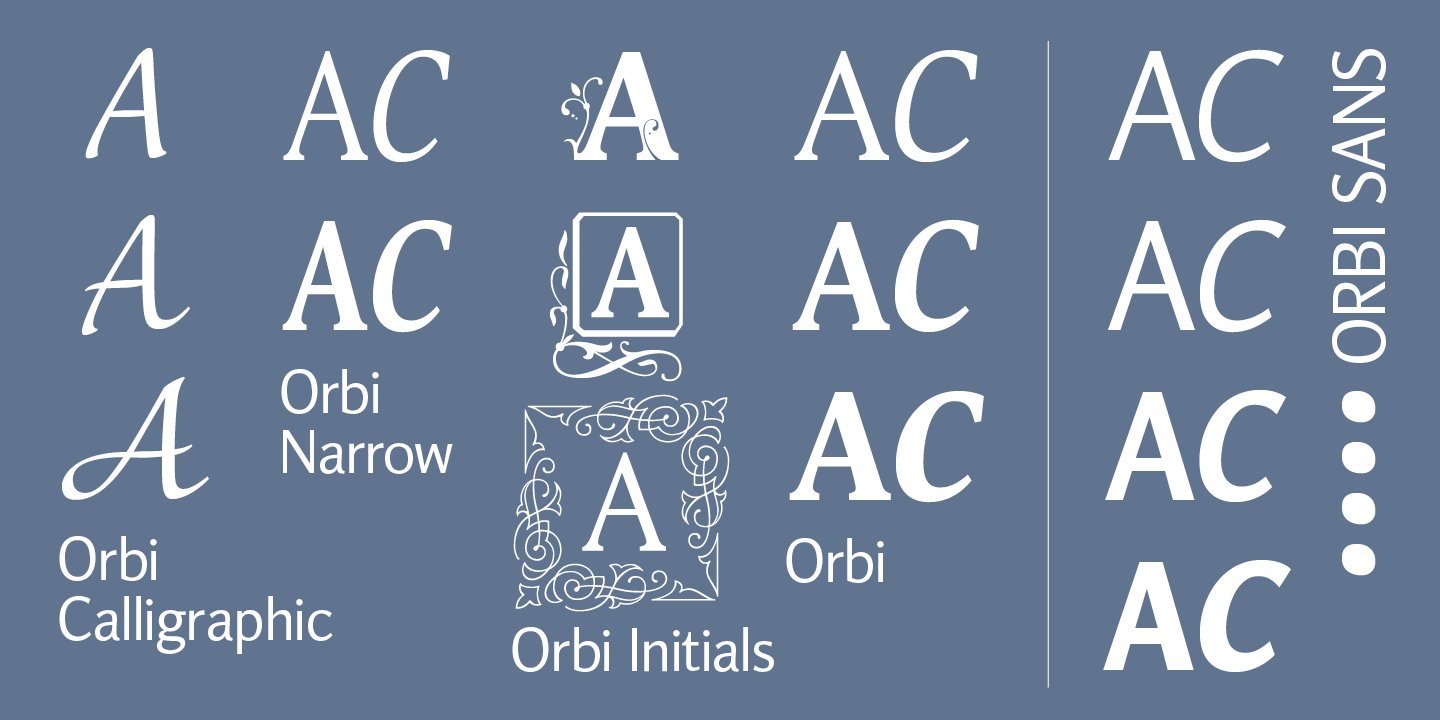
Orbi Sans Font is ideal for space exploration organizations, orbital mechanics research, satellite technology branding, aerospace engineering presentations, planetary science publications, astronomical observatory communications, space mission documentation, cosmic research institutes, orbital dynamics interfaces, and cutting-edge space technology marketing. This futuristic typeface excels in applications where orbital precision and space-age sophistication need to be communicated with celestial elegance and scientific accuracy that embodies the essence of space exploration and the revolutionary advancement found in aerospace technology and orbital mechanics.
What makes Orbi Sans Font exciting is its remarkable ability to capture the precise orbital mechanics and celestial grace of space exploration through its systematically circular letterforms that seem to follow the perfect trajectories and gravitational harmony that govern planetary motion and satellite orbits. The font embodies the spirit of space exploration with its orbitally inspired construction and astronomically precise proportions that suggest the mathematical elegance and systematic precision that characterizes successful space missions and orbital mechanics. Its carefully engineered character details and cosmic personality create an atmosphere of space-age confidence that resonates with aerospace engineers, space scientists, and organizations working in space exploration who understand the critical importance of precision, reliability, and systematic excellence in space technology and orbital applications.
The Orbi Sans Font family typically includes Light, Regular, Medium, and Bold weights, each maintaining the signature orbital characteristics and space-age sophistication. Some versions offer enhanced circular variants that amplify the orbital aesthetic, alternative character sets with astronomical symbols and space notation, and specialized treatments designed for space technology interfaces and scientific space documentation. The family may also include condensed styles for efficient space mission layouts and display cuts optimized for maximum cosmic impact in aerospace and space exploration applications requiring authentic space-age credibility.
Whether you're creating aerospace brand identities, space exploration materials, or orbital technology communications, Orbi Sans Font Free Download delivers the perfect celestial precision your space-focused projects deserve. Its orbital character and space-age styling make it an invaluable choice for space agencies, aerospace companies, and astronomical institutions working in space exploration, satellite technology, and orbital mechanics sectors where authentic space-age sophistication and scientific precision are essential for establishing credibility in the competitive aerospace industry and inspiring confidence in revolutionary space technology solutions and exploration missions.